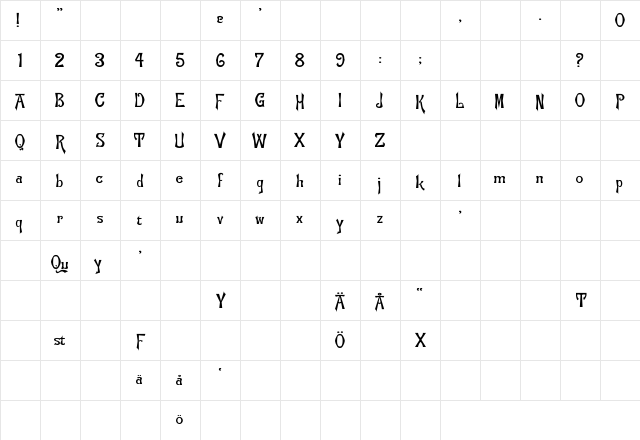
Flemish-Normal Regular
Complete Flemish-Normal Regular glyph index. Displaying only characters natively supported by Flemish-Normal Regular font.
Design Context for Flemish-Normal
Flemish-Normal is a composed and adaptable typeface that performs quietly and consistently across a wide range of design contexts.